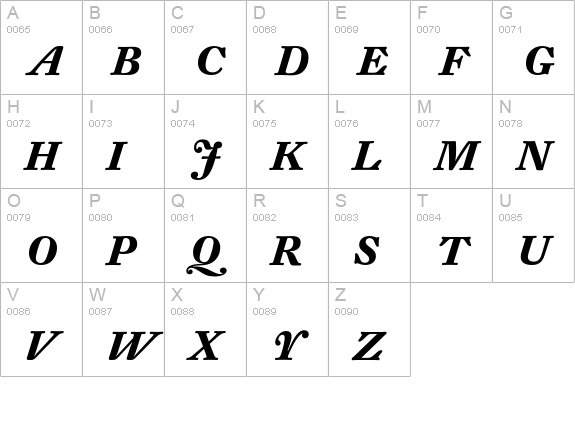
DTL Fleischmann T Bold Italic Font Details
DTL Fleischmann T Bold Italic is a strong, high-contrast, italic variant in the DTL typeface family \xE2\x80\x94 well suited to headlines, attention-grabbing titles, and strong calls-to-action.
The DTL Fleischmann T Bold Italic font is a stunning display of elegance and sophistication. Its bold and italicized design exudes a sense of confidence and flair, making it perfect for adding a touch of sophistication to any project. The clean lines and sharp angles of this font create a modern and contemporary look that is sure to impress. What's even better is that this gorgeous font is available for free download at FontsMarket.com. Now you can elevate your designs with the DTL Fleischmann T Bold Italic font without having to spend a penny. Don't miss out on this incredible opportunity to add a touch of style and class to your projects with this exquisite font. Download it now and let your creativity shine!